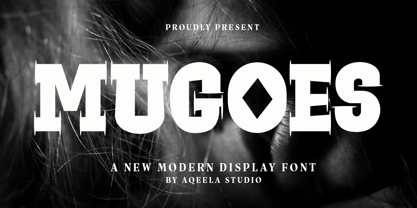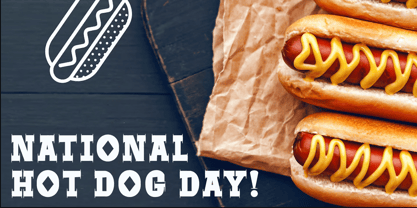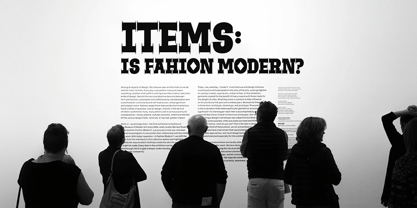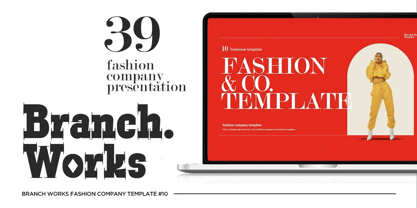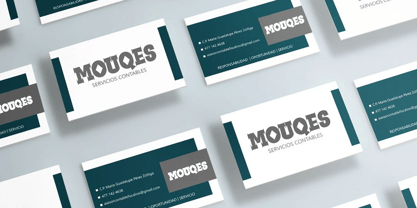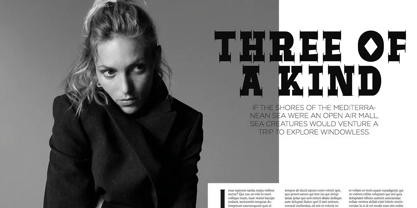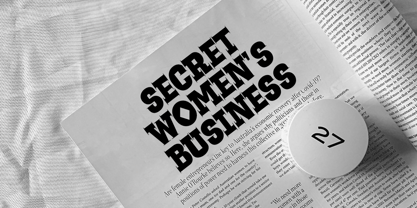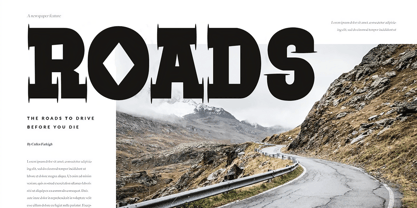
Mugoes
by Aqeela Studio
The Mugoes Font Family was designed by Muhammad Nasir and published by Aqeela Studio. Mugoes contains 1 styles. More about this family
The Mugoes font is a bold and modern display typeface, featuring sharp, geometric serifs and clean, structured lines. Its unique design elements, such as its symmetrical diamond-shaped cuts and striking edges, make it ideal for high-impact branding, logos, and poster designs. With a strong presence and contemporary vibe, this font exudes confidence and style, perfect for projects that aim to captivate and stand out. Crafted with precision, Mugoes seamlessly merges traditional serif influences with modern aesthetic trends, offering versatility for a range of creative applications.
Designers: Muhammad Nasir
Foundry: Aqeela Studio